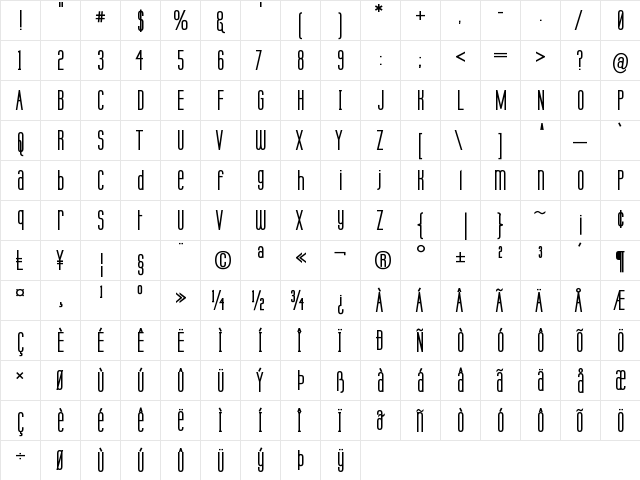
Labtop Unicase Bold
Design Context for Labtop Unicase Typeface
Labtop Unicase takes a measured approach to typography — its balanced proportions and neutral character make it a reliable workhorse for both digital and print work. The heavy weight commands attention and anchors typographic hierarchies.